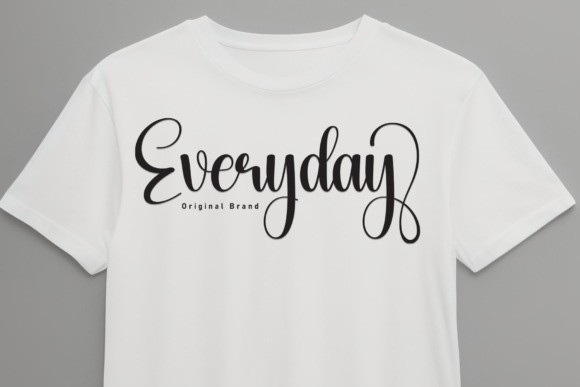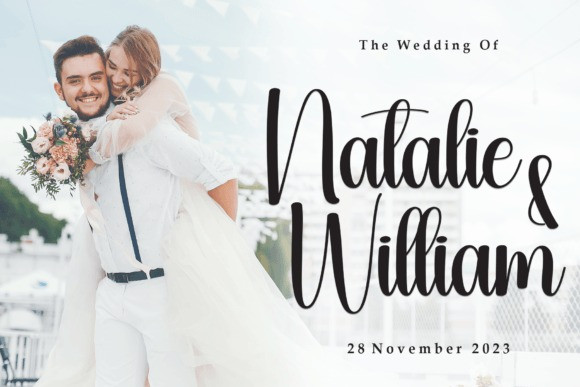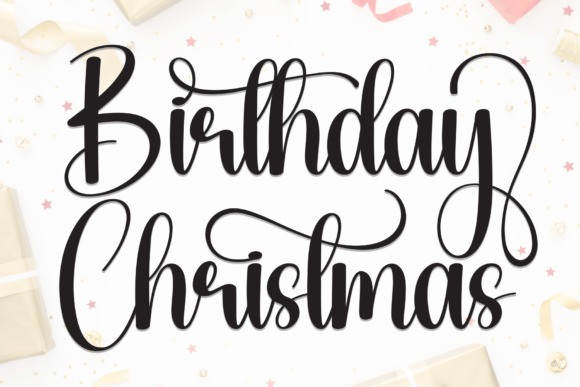
Birthday Christmas Script Font
Birthday Christmas Script Font is a lovely and timeless handwritten font. It is the best choice for creating eye catching logos, branding and quotes. Every letter has a unique and beautiful touch, which will make your design come alive!